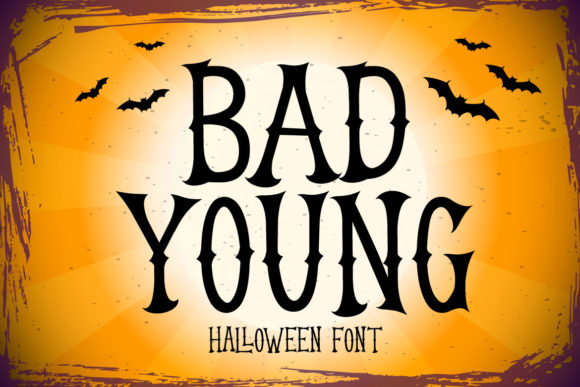
Introducing Bad Young Font - A Creepy Delight for Your Christmas Designs!
Dare to be different this Christmas with Bad Young Font, a spellbinding display font that oozes holiday spirit with a touch of spooky charm. Its eerie yet captivating aura is sure to make your festive designs stand out from the crowd.
Crafted by the talented Fallengraphic, Bad Young Font is a PUA-encoded masterpiece, allowing you to effortlessly access all its glyphs and swashes. Unleash your creativity and let the magic unfold as you transform your holiday projects into enchanting works of art.
Picture your Christmas cards adorned with Bad Young Font's haunting beauty, sending shivers of excitement down the spines of your recipients. Design haunting posters that beckon people to your holiday events, creating an air of mystery and intrigue. Let your imagination run wild and turn your social media posts into captivating tales, brought to life by Bad Young Font's unique charm.
Whether you're a seasoned designer or just starting, Bad Young Font is your perfect companion for this festive season. Its user-friendly nature makes it accessible to all, empowering you to create stunning designs with minimal effort.
So, embrace the spooky spirit of Christmas with Bad Young Font and let your creativity soar. Its versatility extends beyond holiday designs, making it a haunting addition to Halloween projects, horror-themed creations, and any design that demands a touch of the supernatural.
Embrace the darkness, embrace Bad Young Font, and let your creations shine with otherworldly allure!